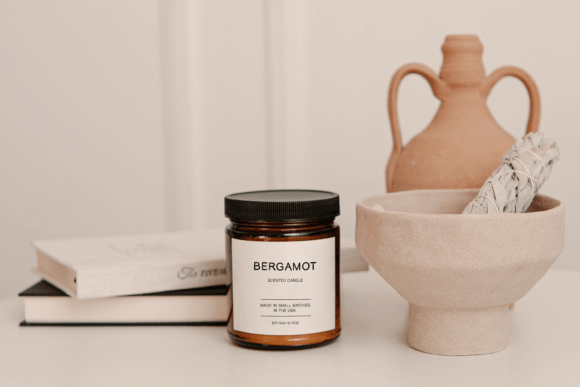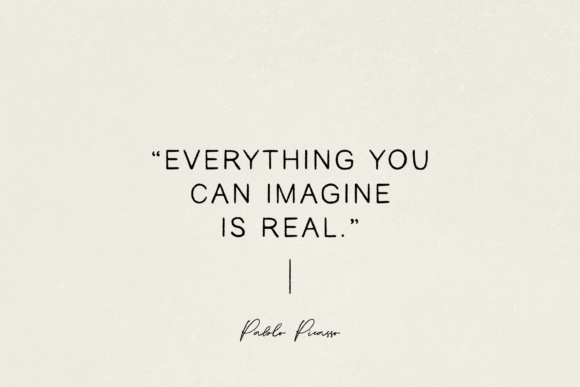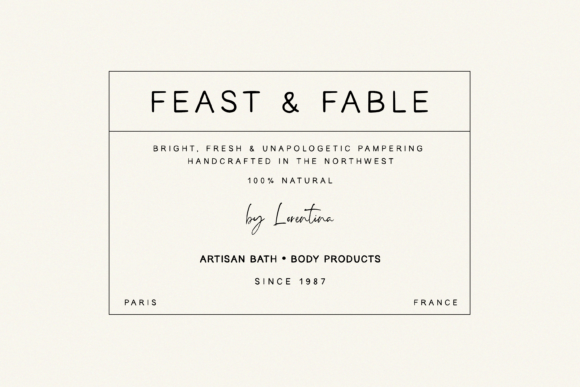
Francesca Font
Francesca is a sweet and simple handwritten sans-serif font. It has a friendly and playful style, perfect for cards, invitations, or fun designs. Its soft curves make it easy to read while adding a personal, creative touch.